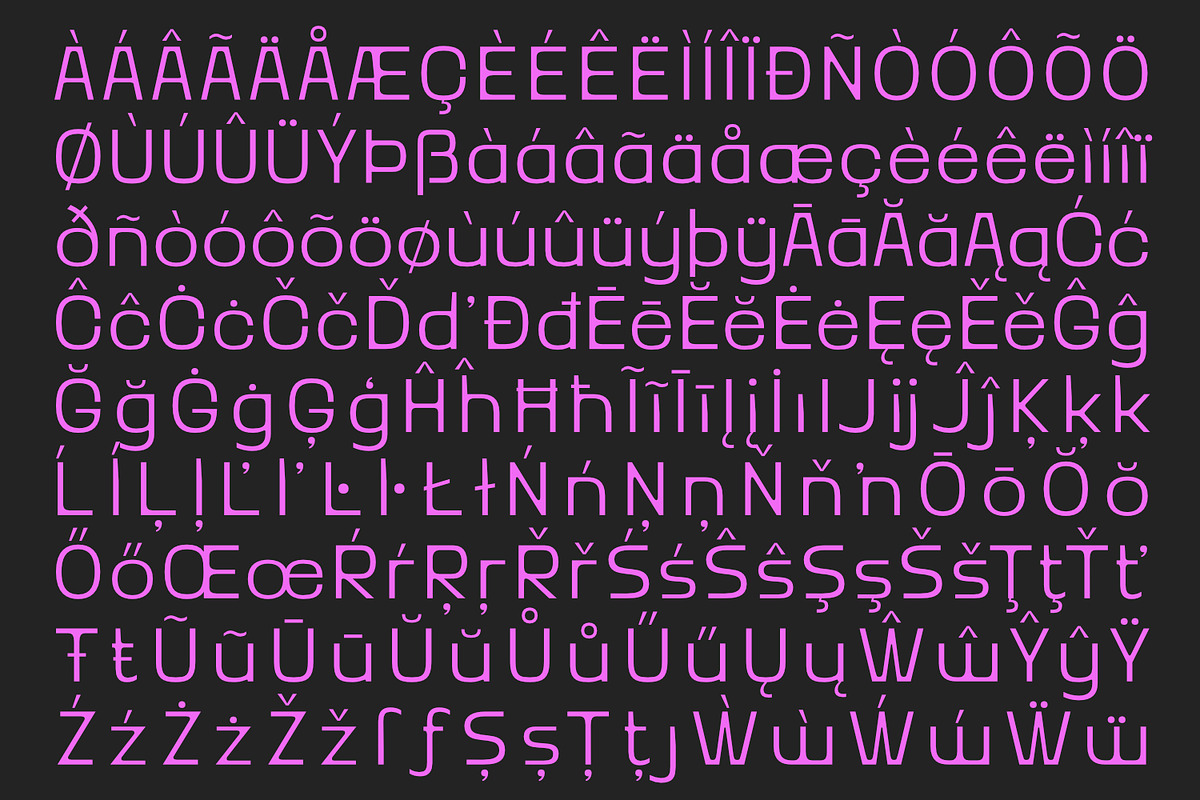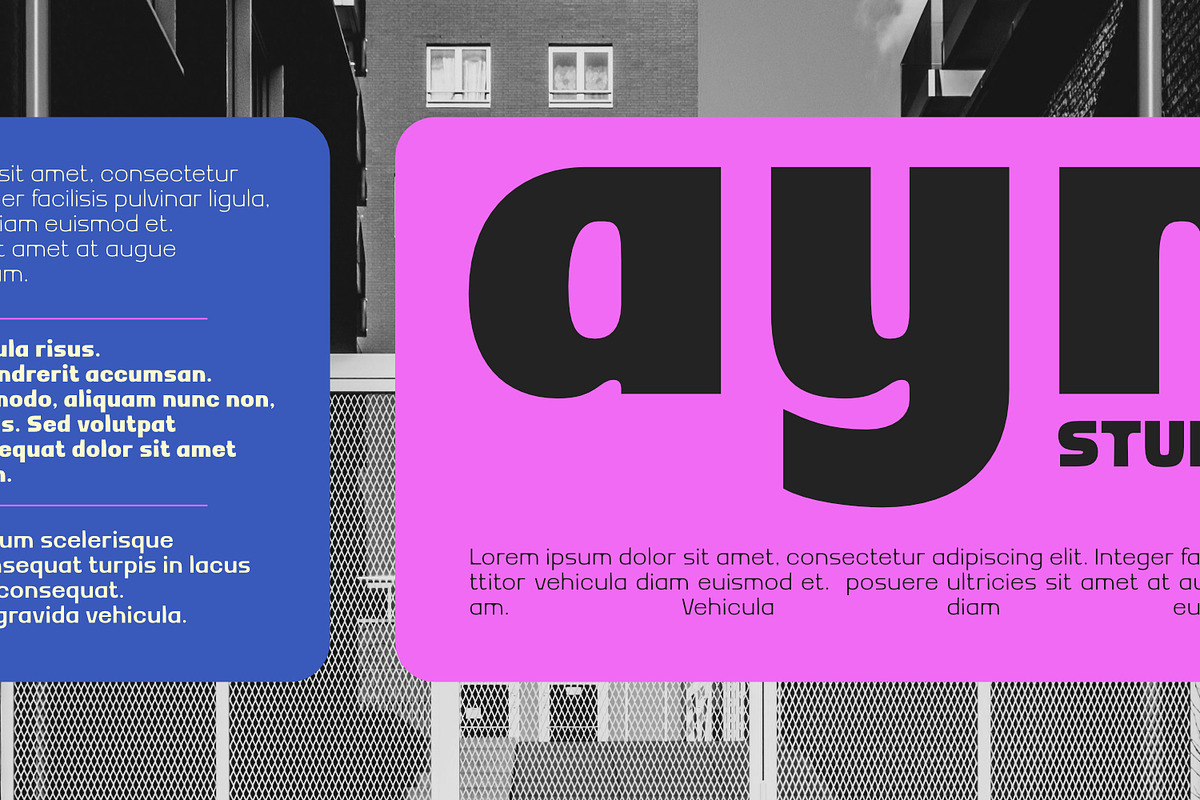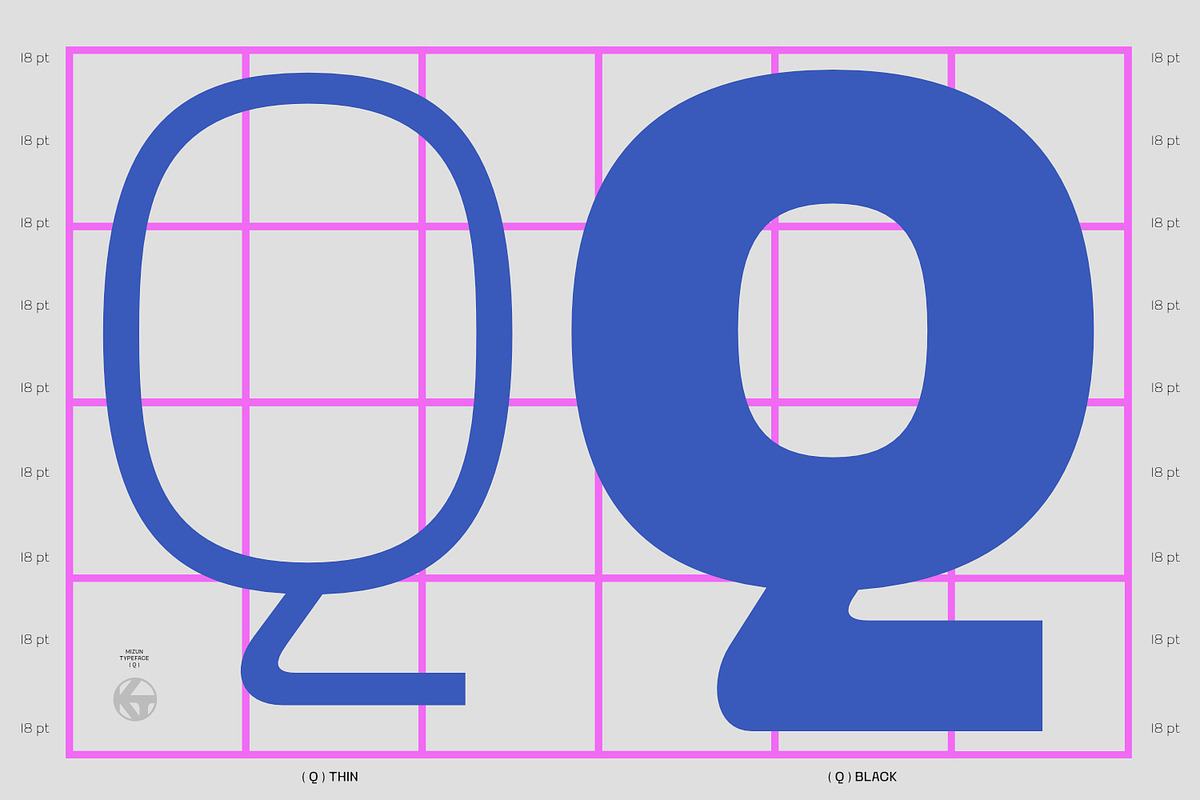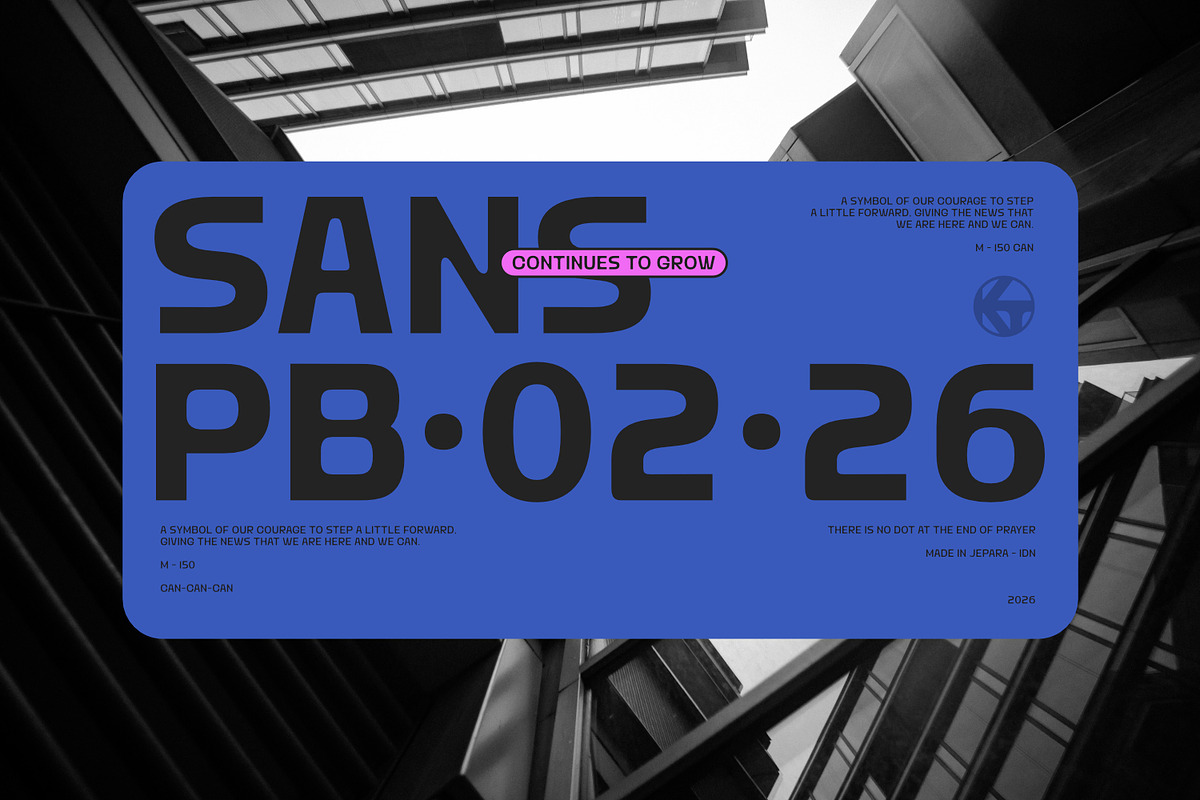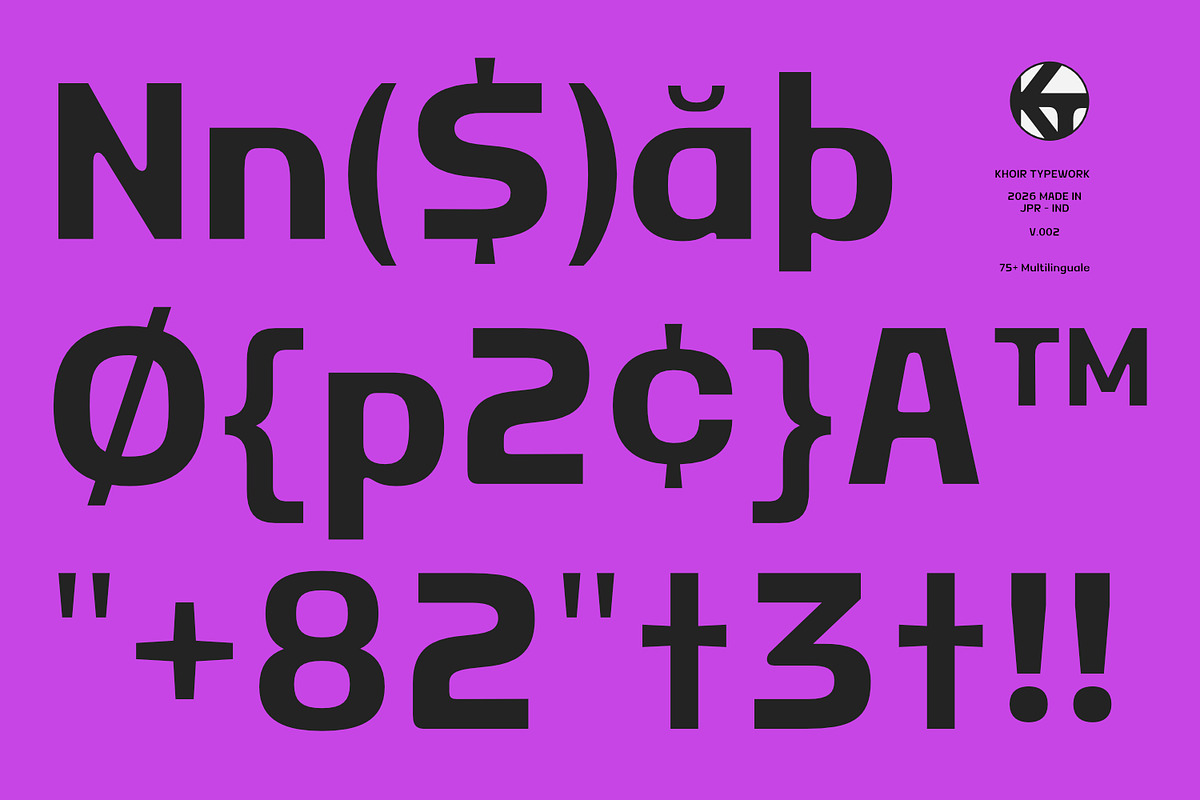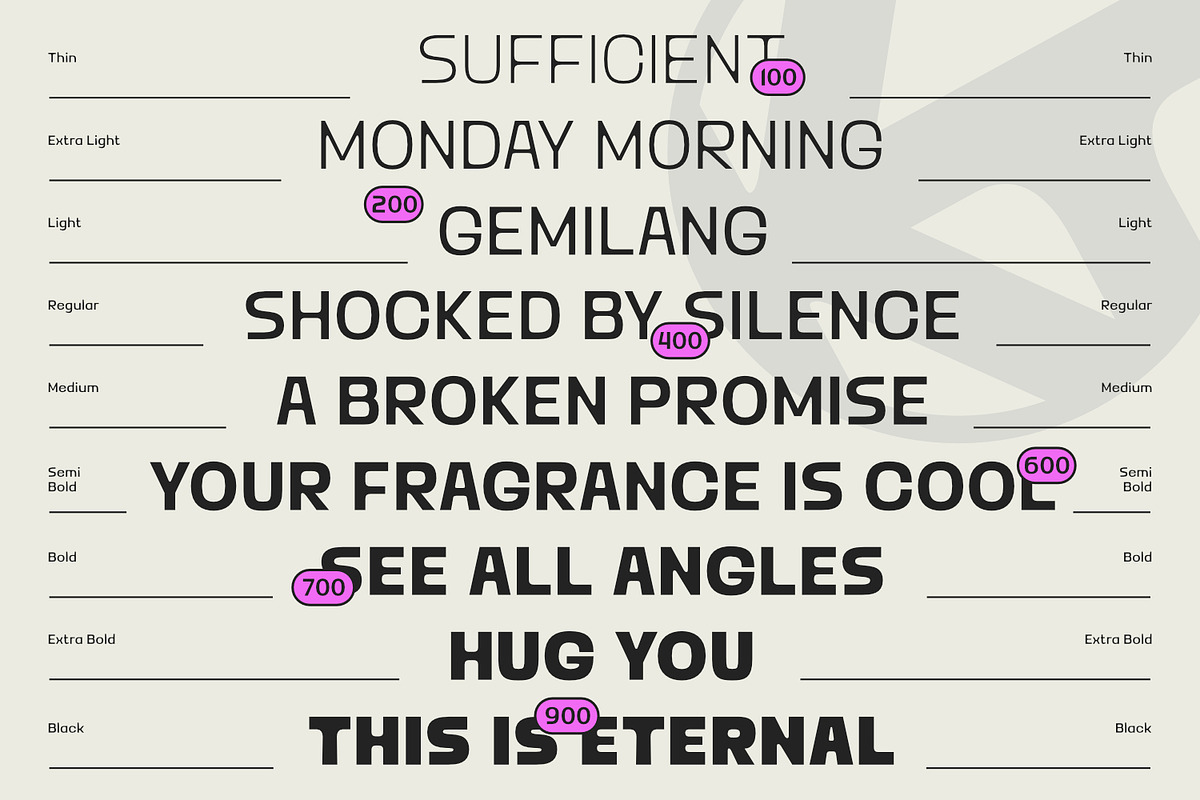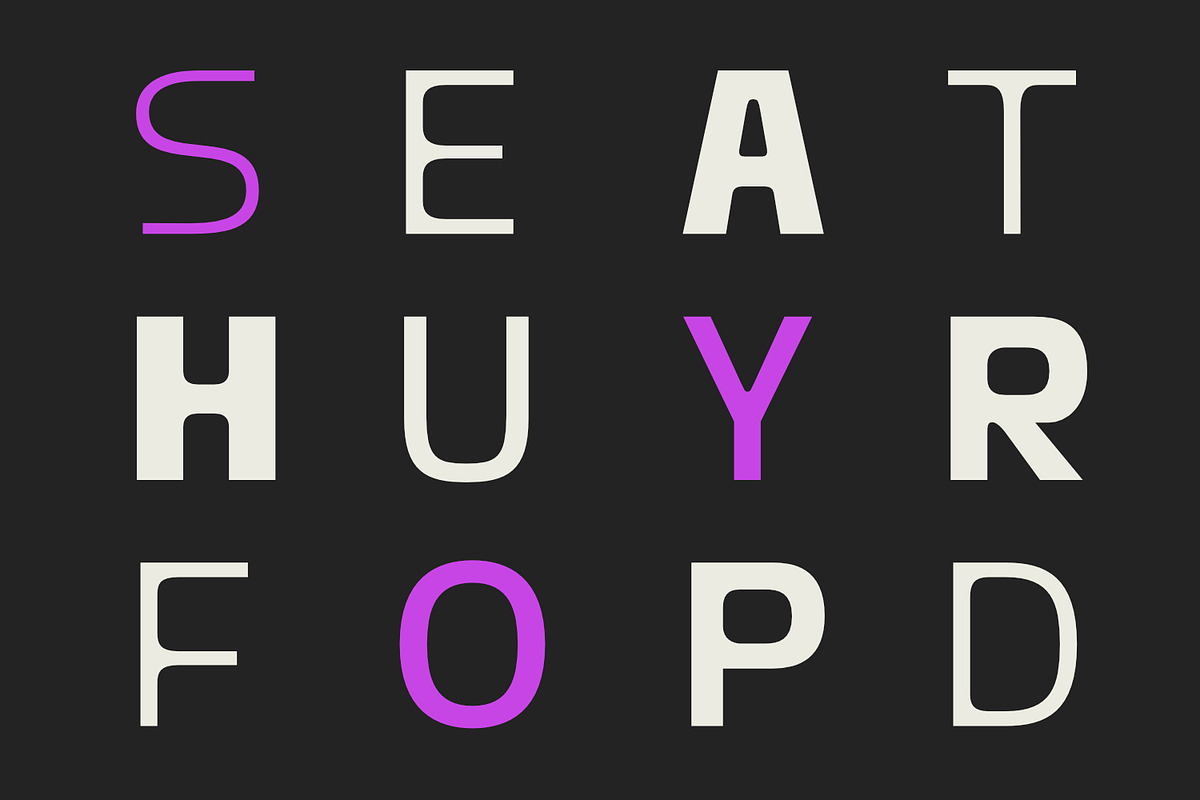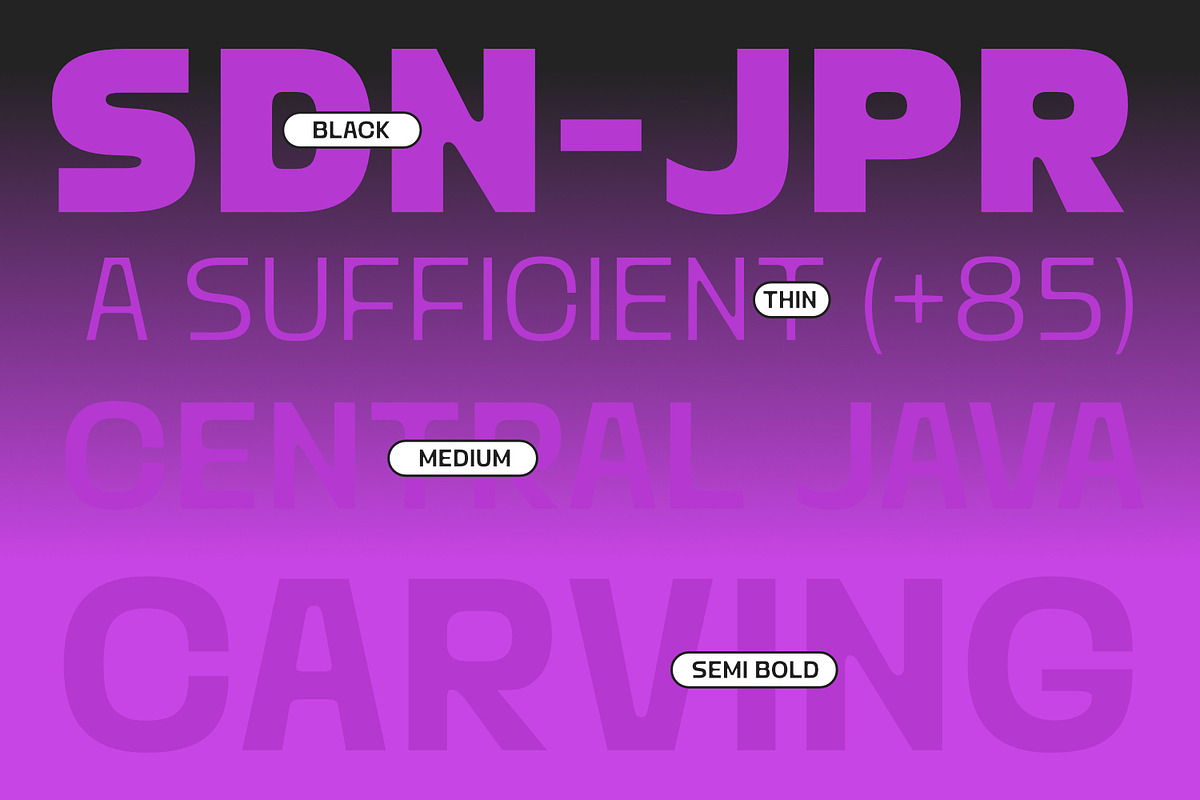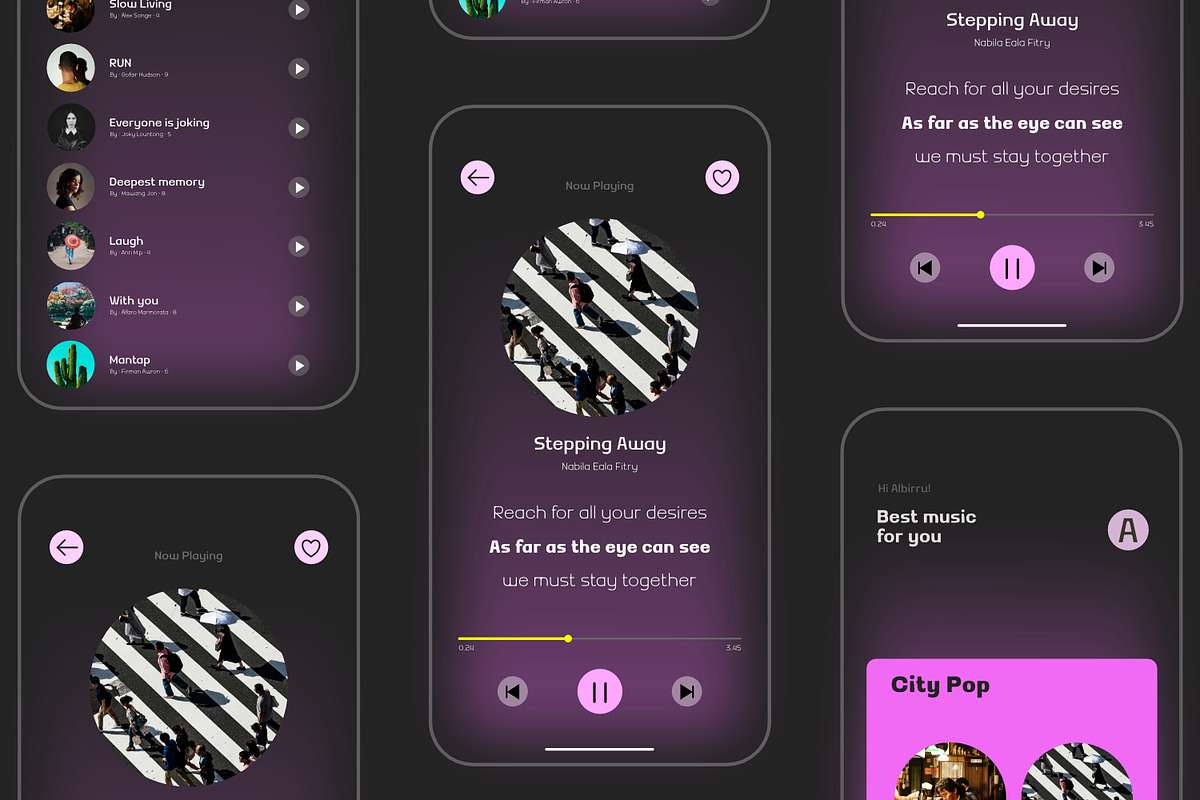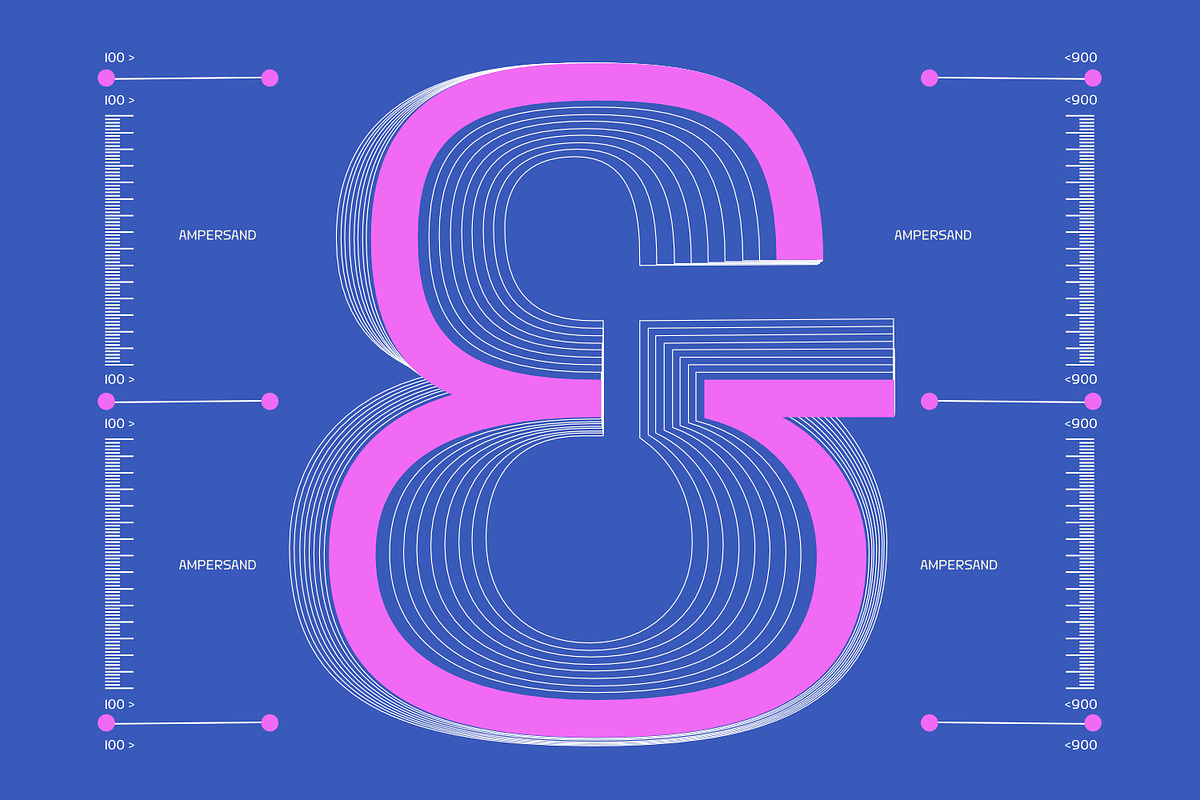
Mizun Typeface
Mizun Typeface is a sans-serif font with a touch of freedom, uniqueness, and expressive character. Leaning towards a display style, it features distinctive letterforms that set it apart from standard sans-serifs while remaining highly readable—even for body text. It comes in 9 weights, giving you plenty of flexibility to explore and choose the perfect look. Don't wait—give it a try!
Typeface Features:
- 9 Weights—Thin, Extra Light, Light, Regular, Medium, Semibold, Bold, Extra Bold & Black (OTF + Variable Fonts)
- Extended Latin Character Set (supports over 75 languages)
- Punctuation & Symbols